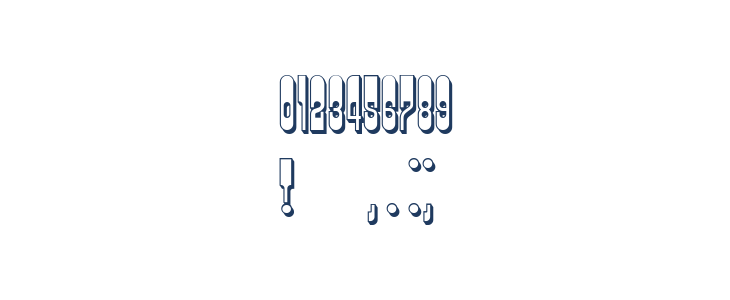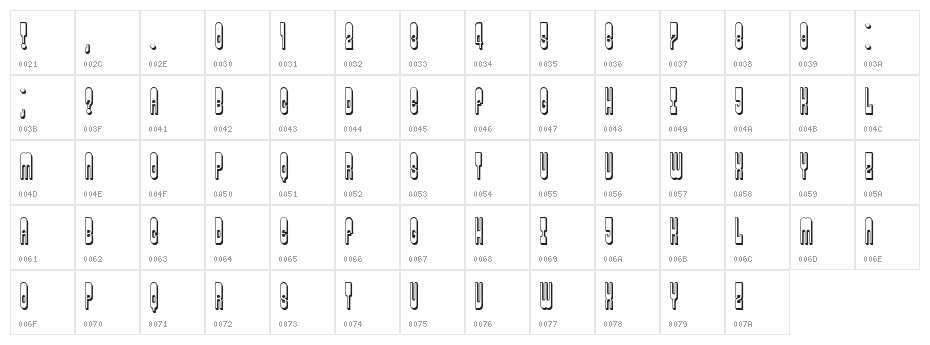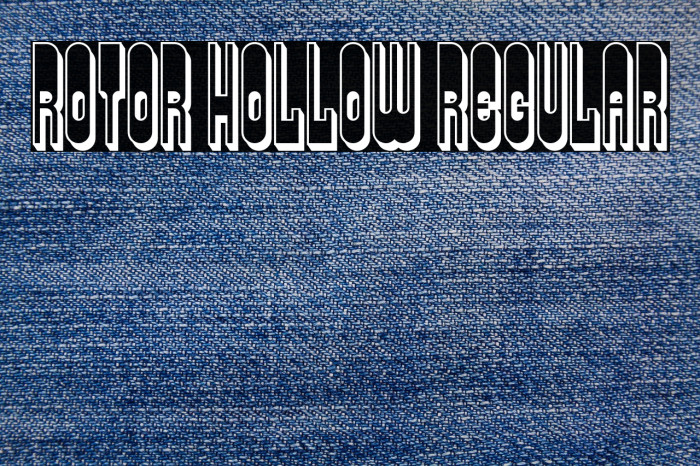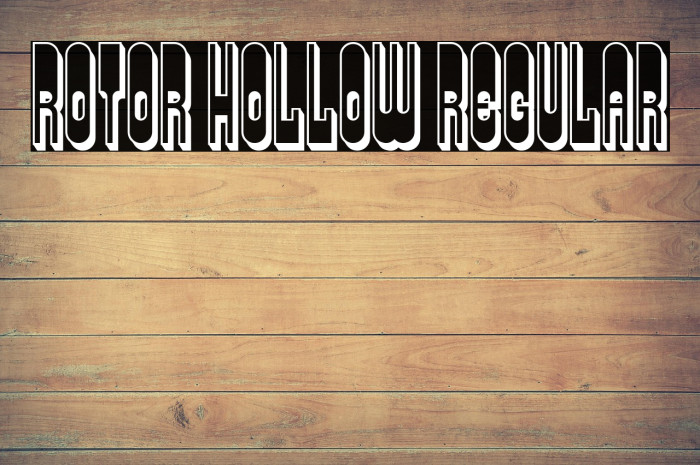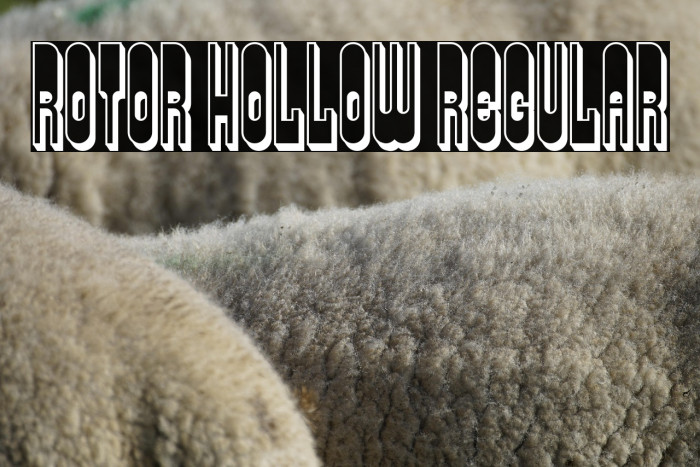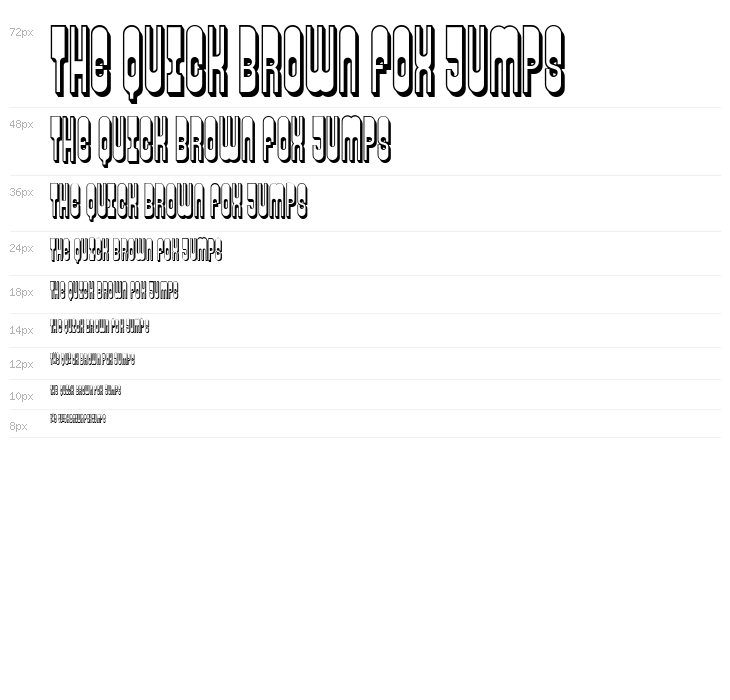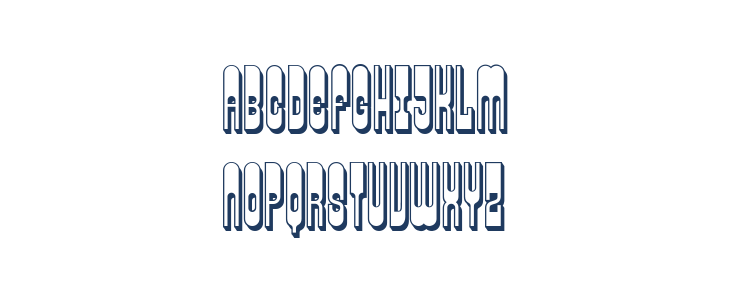
Rotor Hollow Regular Font
Rotor Hollow Regular Description
This font features a bold, hollow design with a modern and geometric aesthetic. The characters are outlined with a consistent stroke width, creating a striking and eye-catching appearance. The uppercase and lowercase letters maintain a uniform height, while the numbers and special characters follow the same stylistic approach. The font's hollow nature gives it a unique, futuristic feel, making it suitable for projects that require a standout display typeface. The clean lines and structured form contribute to its readability, despite the decorative elements.
| Proposed Projects | Ideal for headlines, posters, logos, and branding materials that require a bold and modern look. |